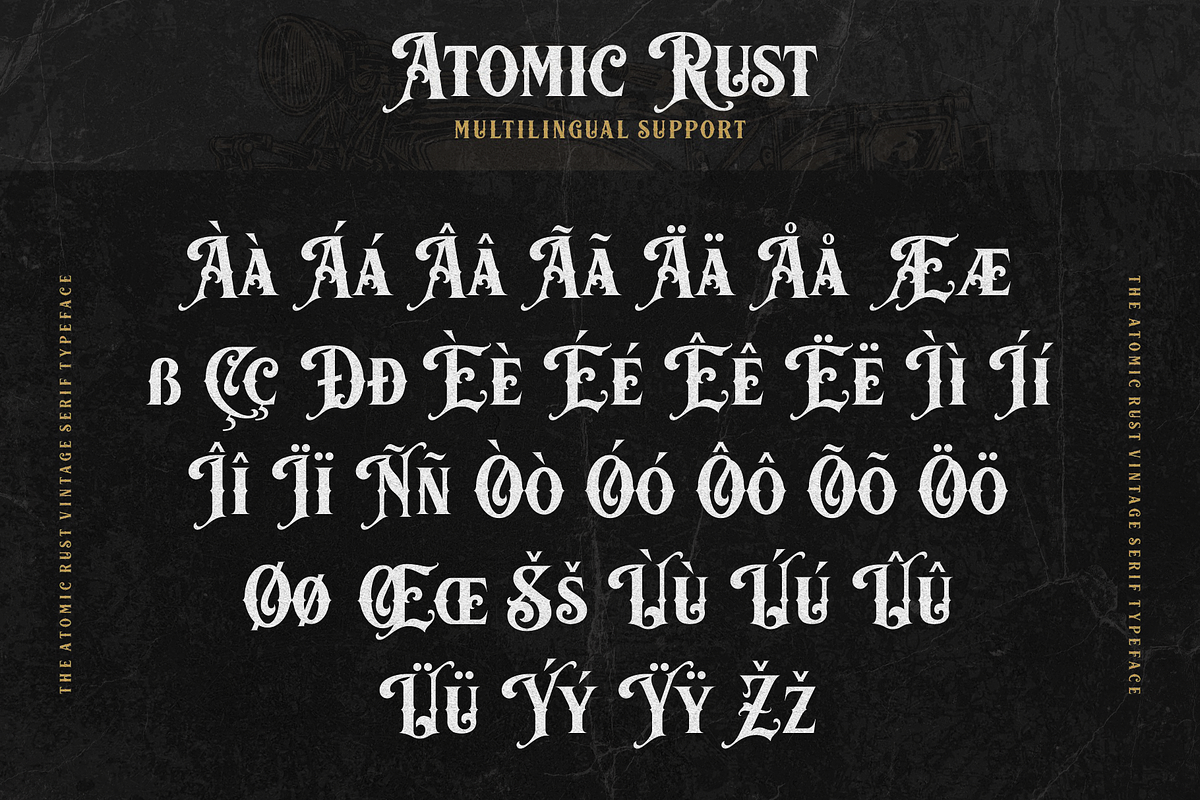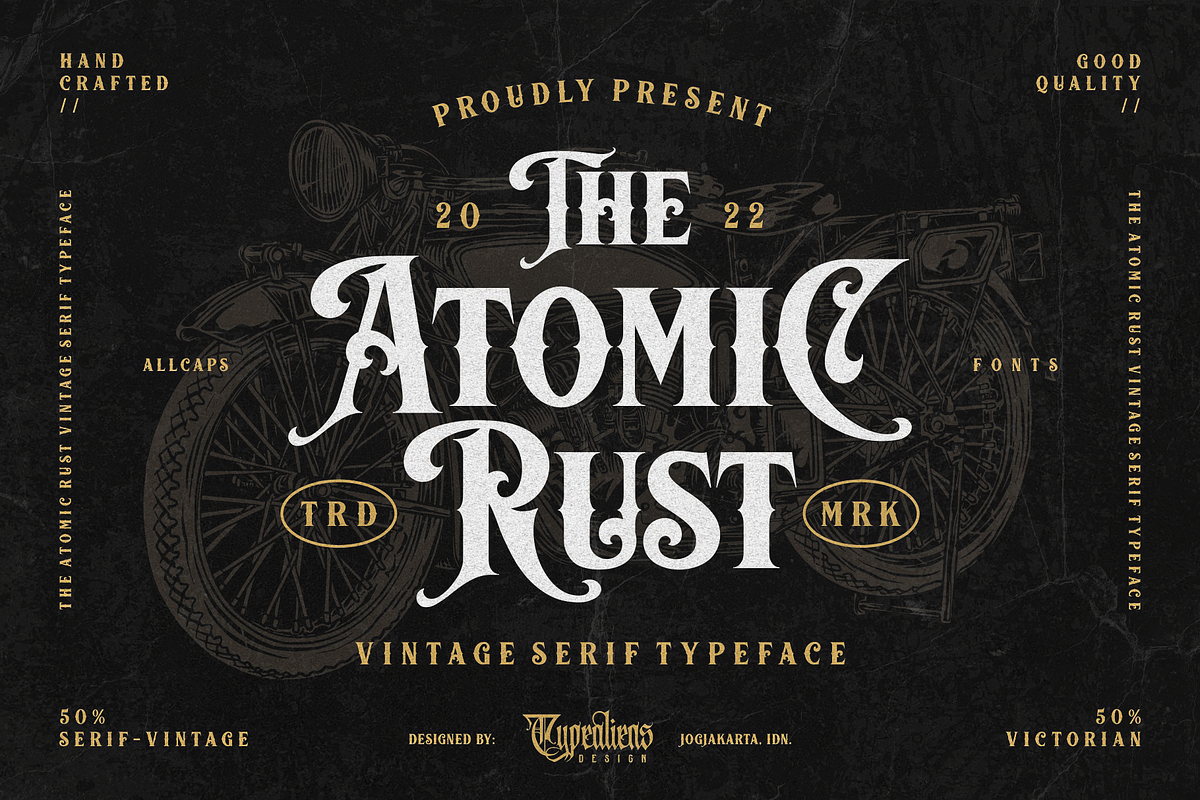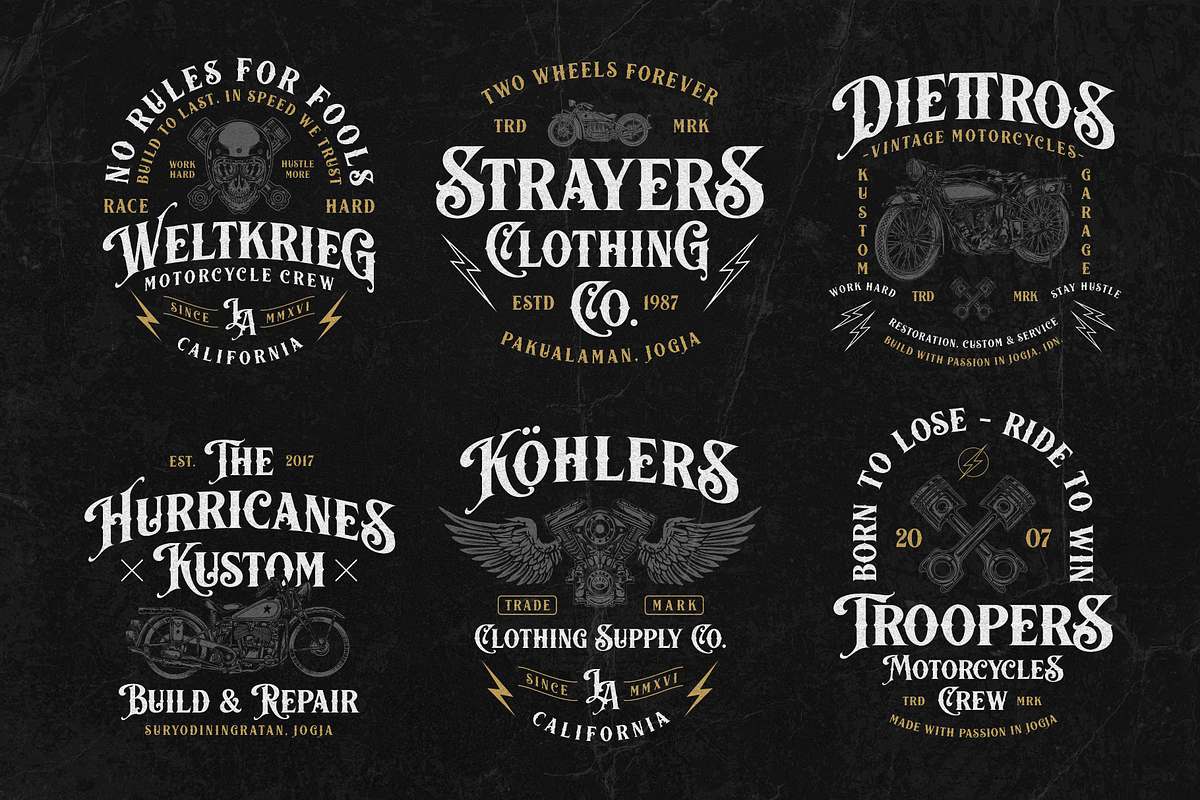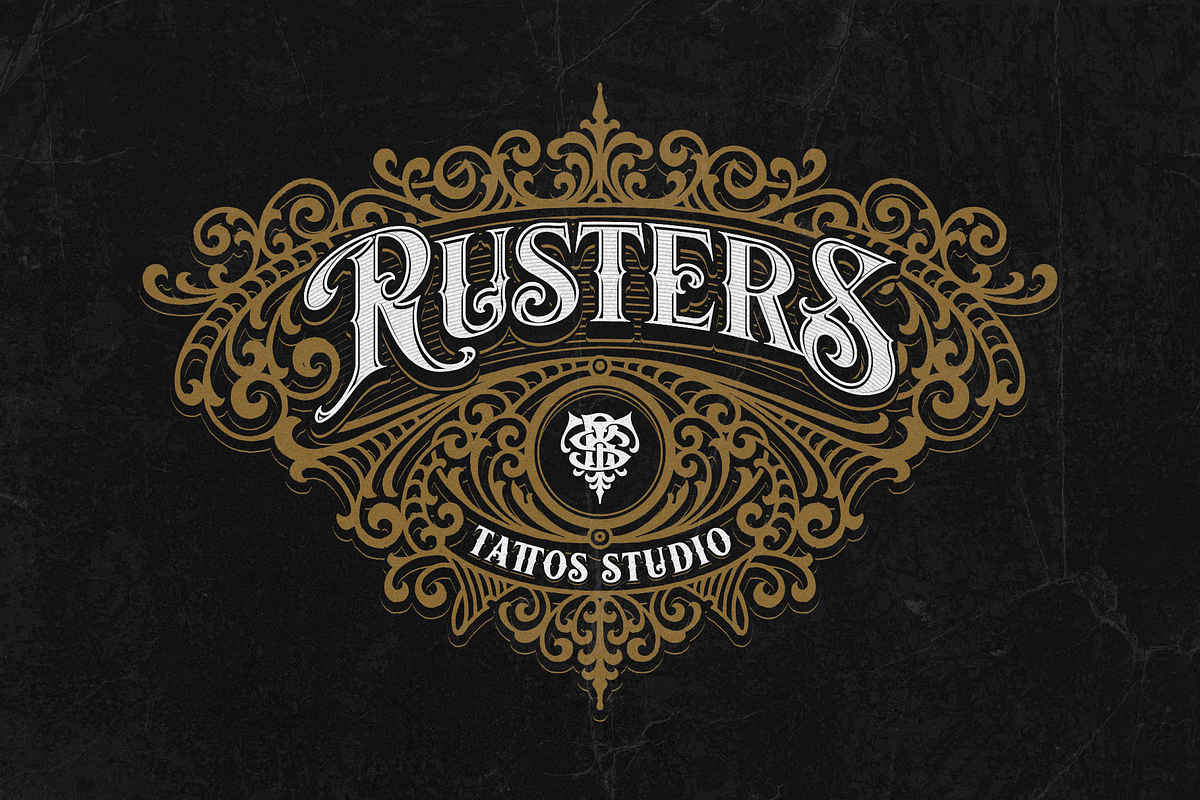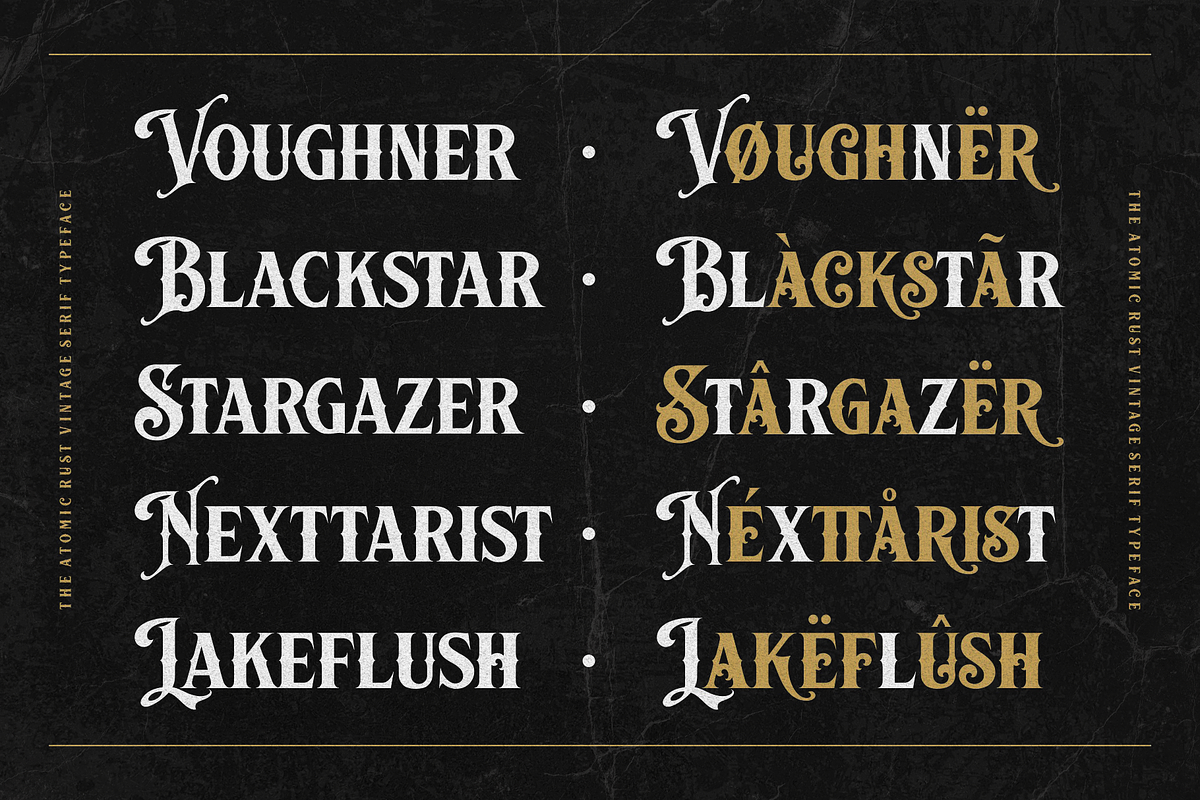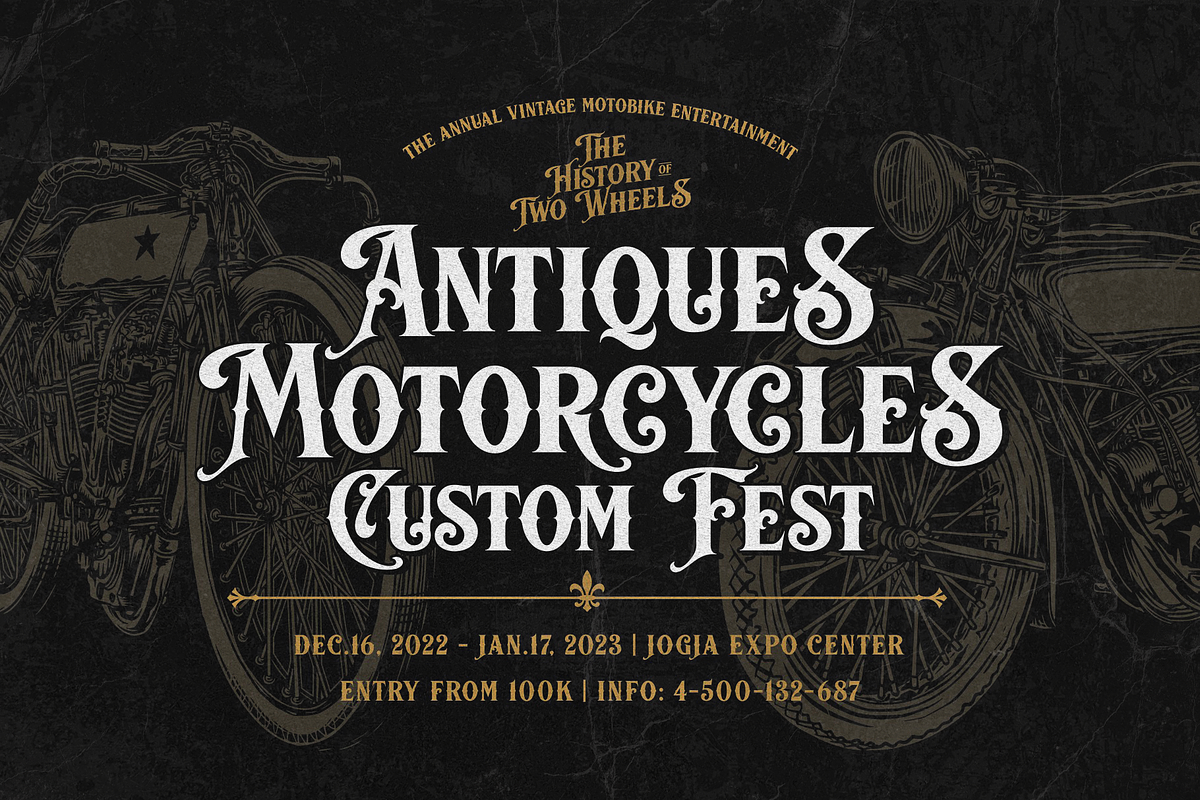
ATOMIC RUST
Atomic Rust is a vintage font with a Victorian era style, adapted for classic or retro design needs, such as garage or motorcycle-related badge designs. However, it is also good for designing liquor labels with attractive ornaments combined. This font is an All caps font, but the uppercase and lowercase have different letter shapes and heights, plus there are alternative characters in the lowercase between regular and more decorative forms.